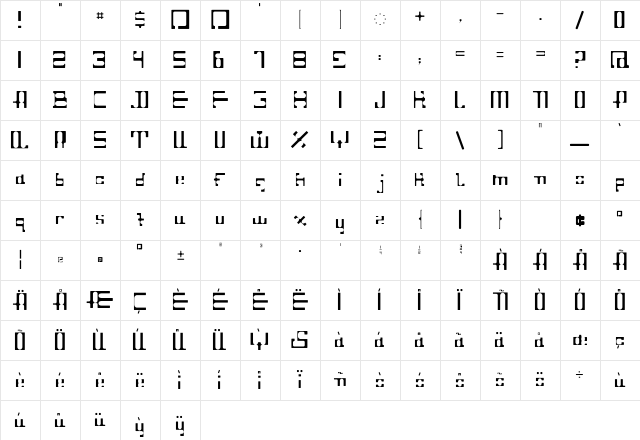
Complete Dahgir Square glyph index. Displaying only characters natively supported by Dahgir Square font.
Dahgir is a composed and adaptable typeface that performs quietly and consistently across a wide range of design contexts.